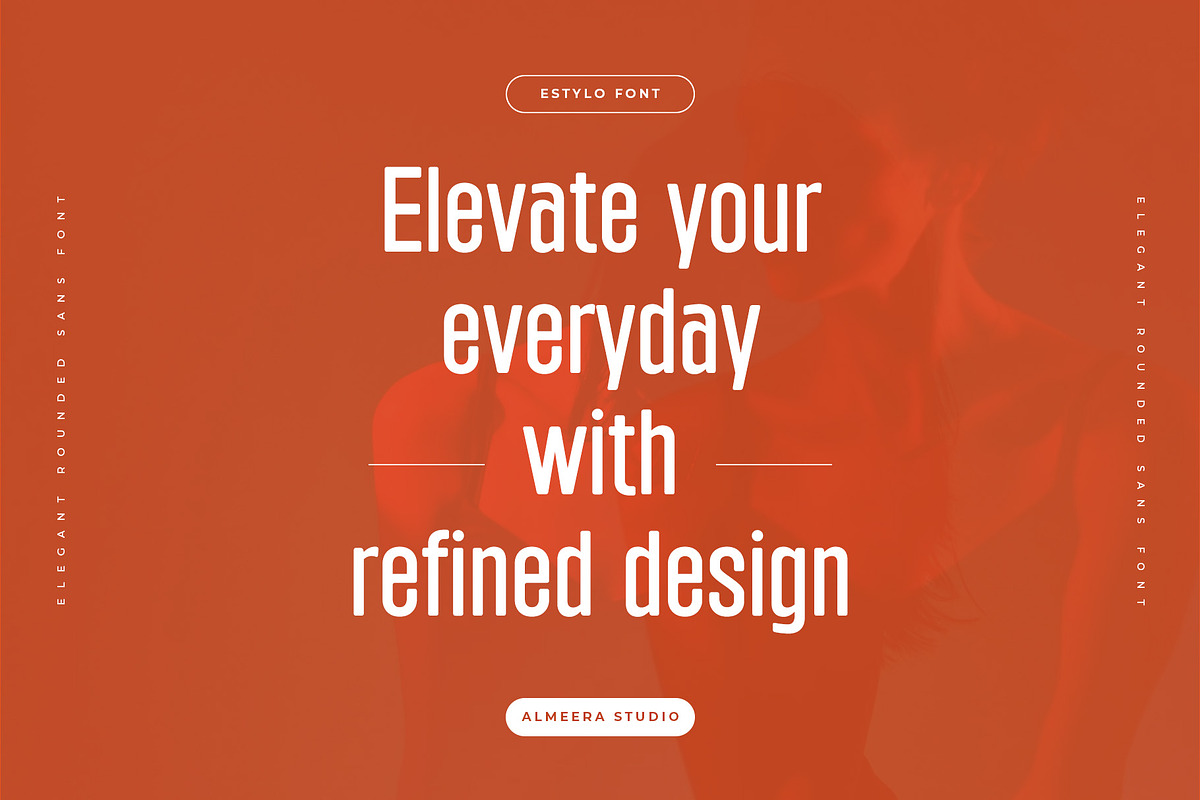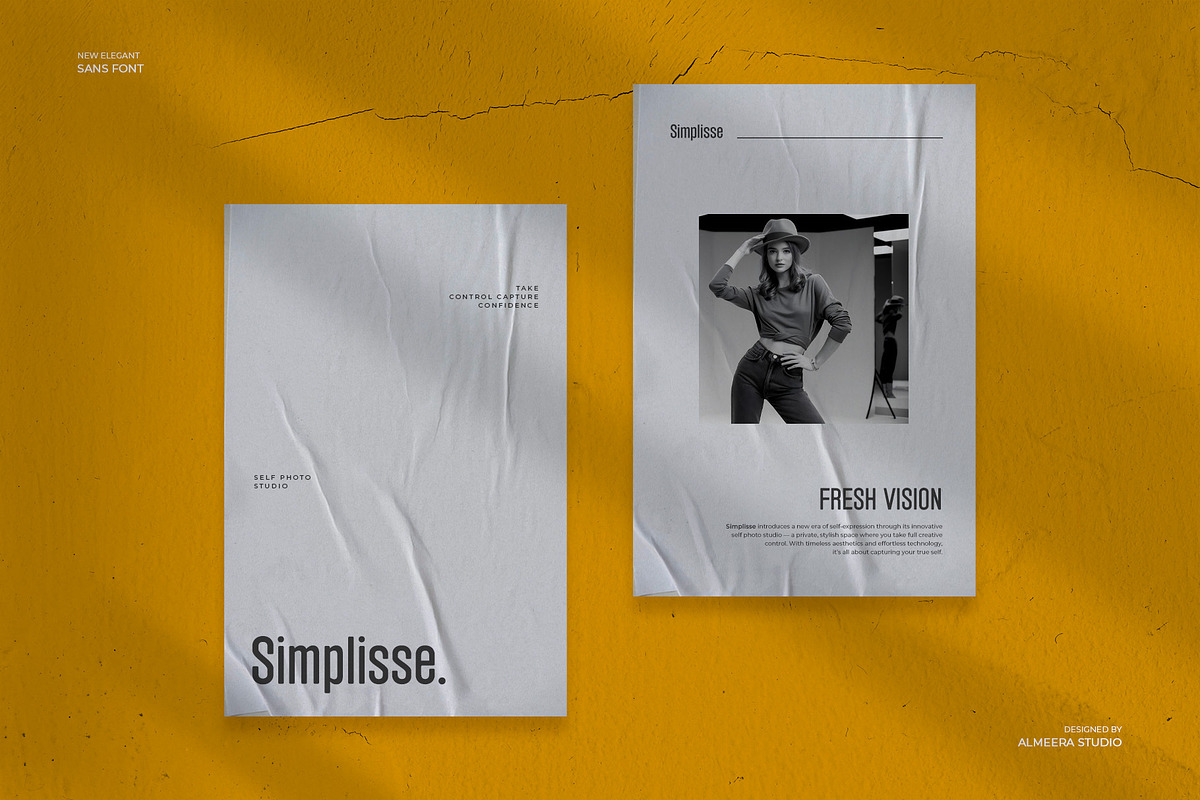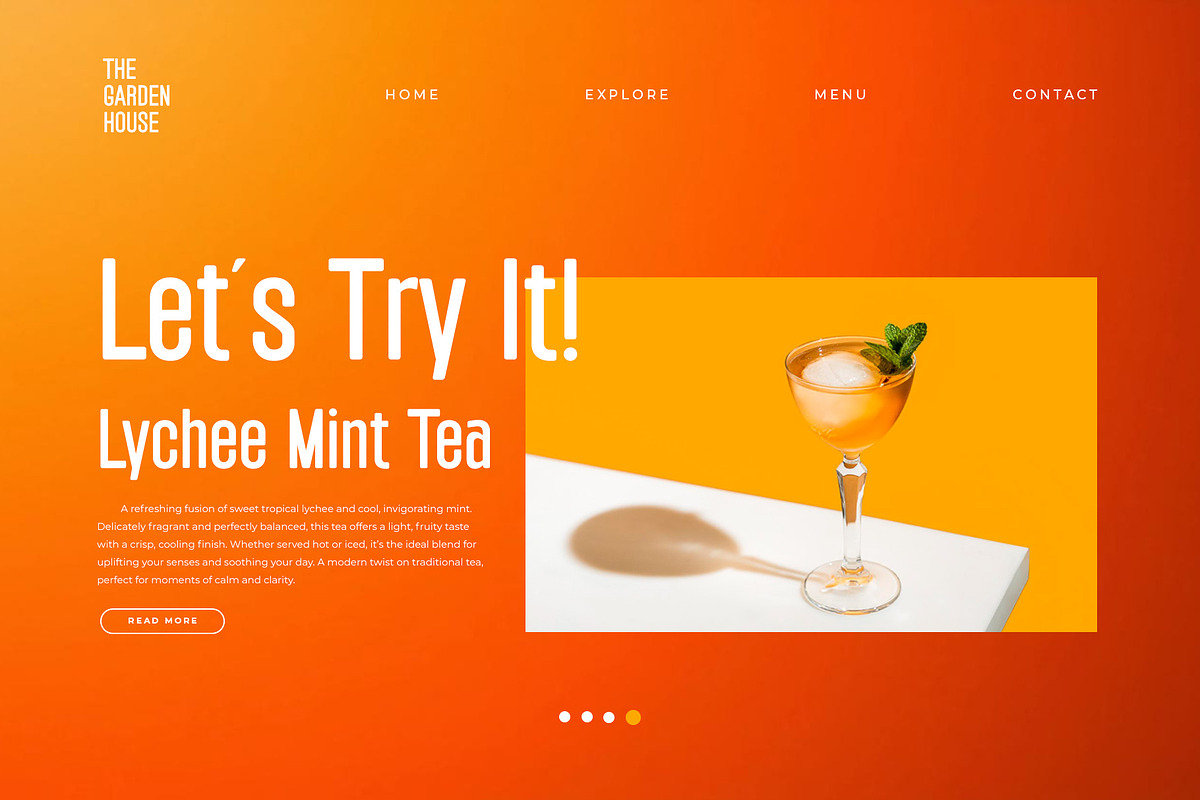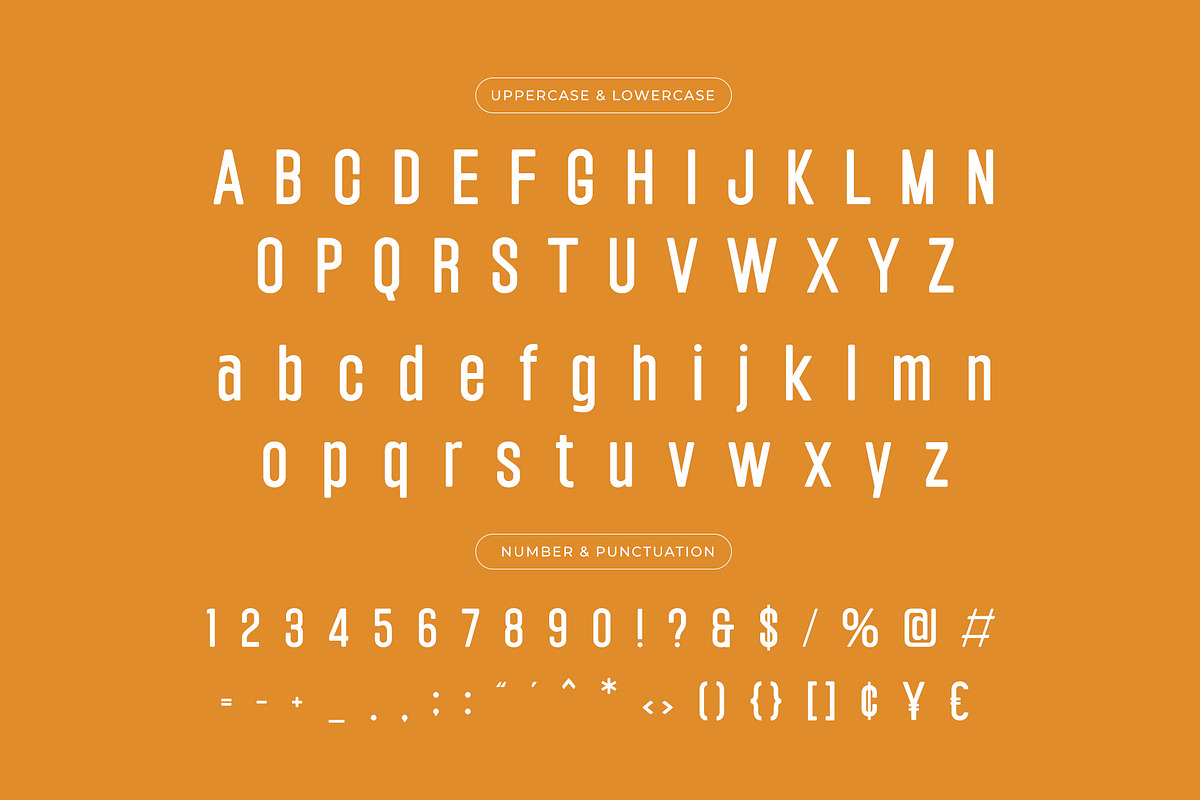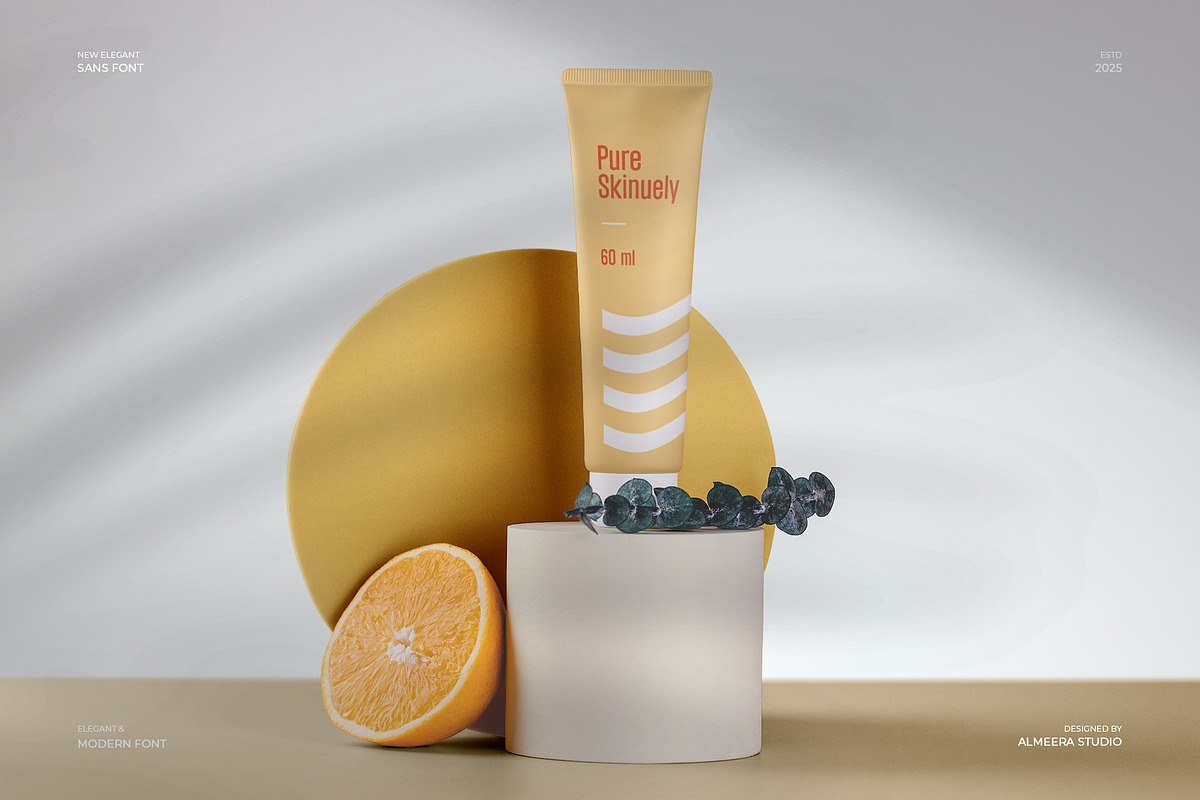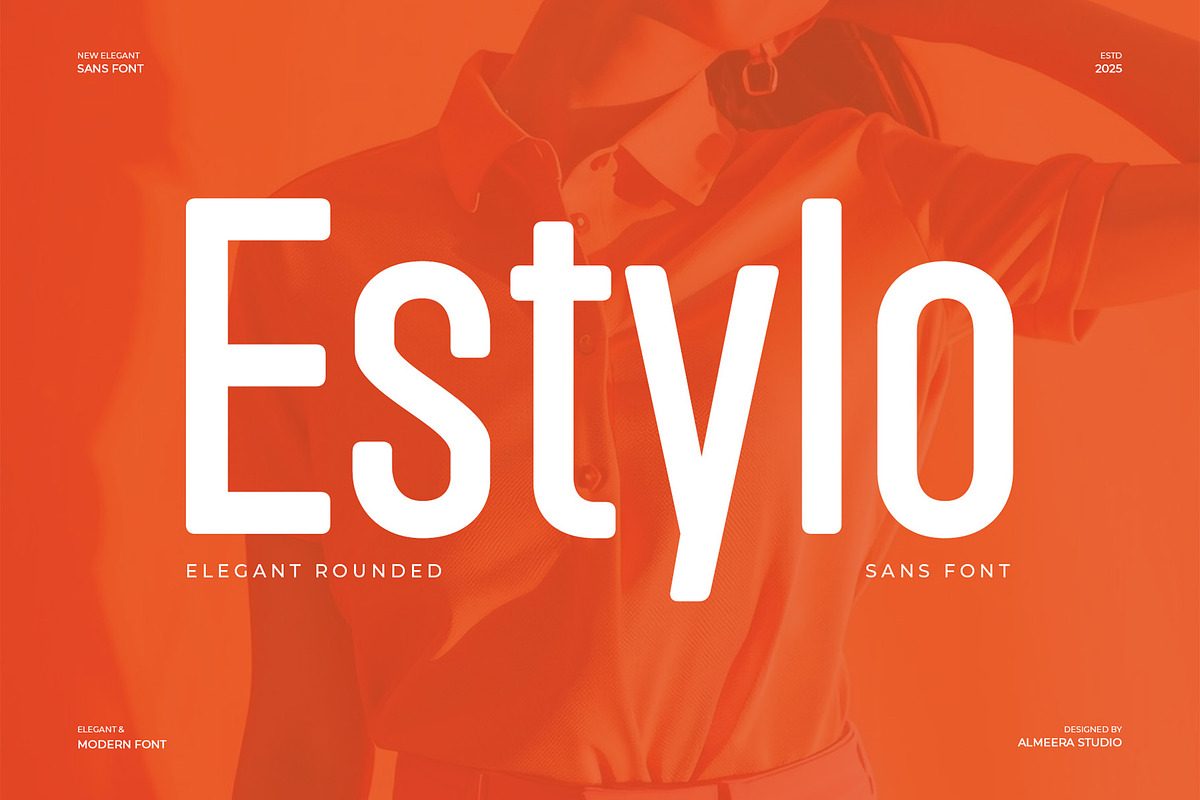
Estylo - Display Sans
Estylo is a contemporary sans-serif display font that exudes urban elegance. Featuring smooth geometric shapes and a balanced structure, it’s ideal for bold headlines, modern branding, digital interfaces, and lifestyle aesthetics. Estylo blends functionality with personality, offering versatility for any stylish design project.